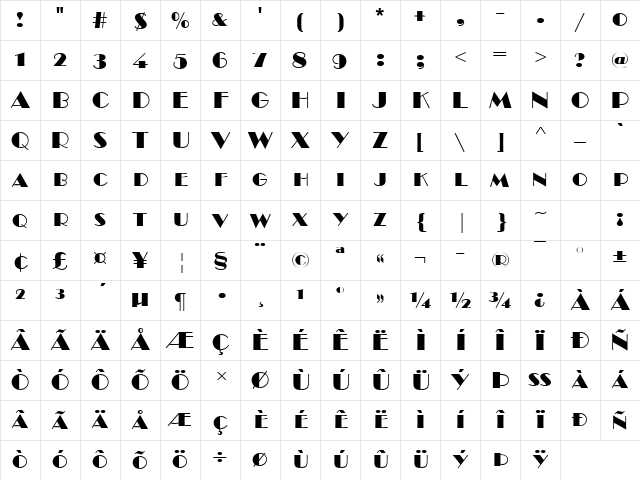
BroadwaySCD Regular
Design Context for BroadwaySCD
BroadwaySCD is a composed and adaptable typeface that performs quietly and consistently across a wide range of design contexts.